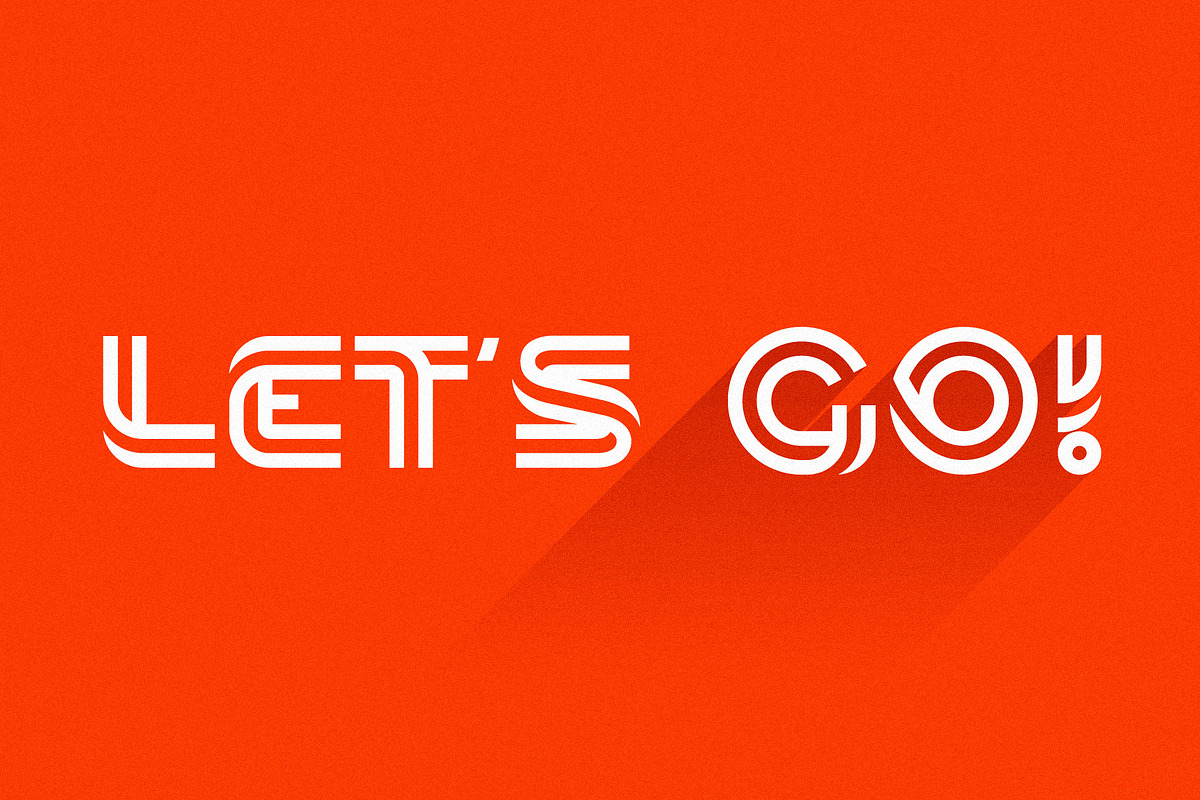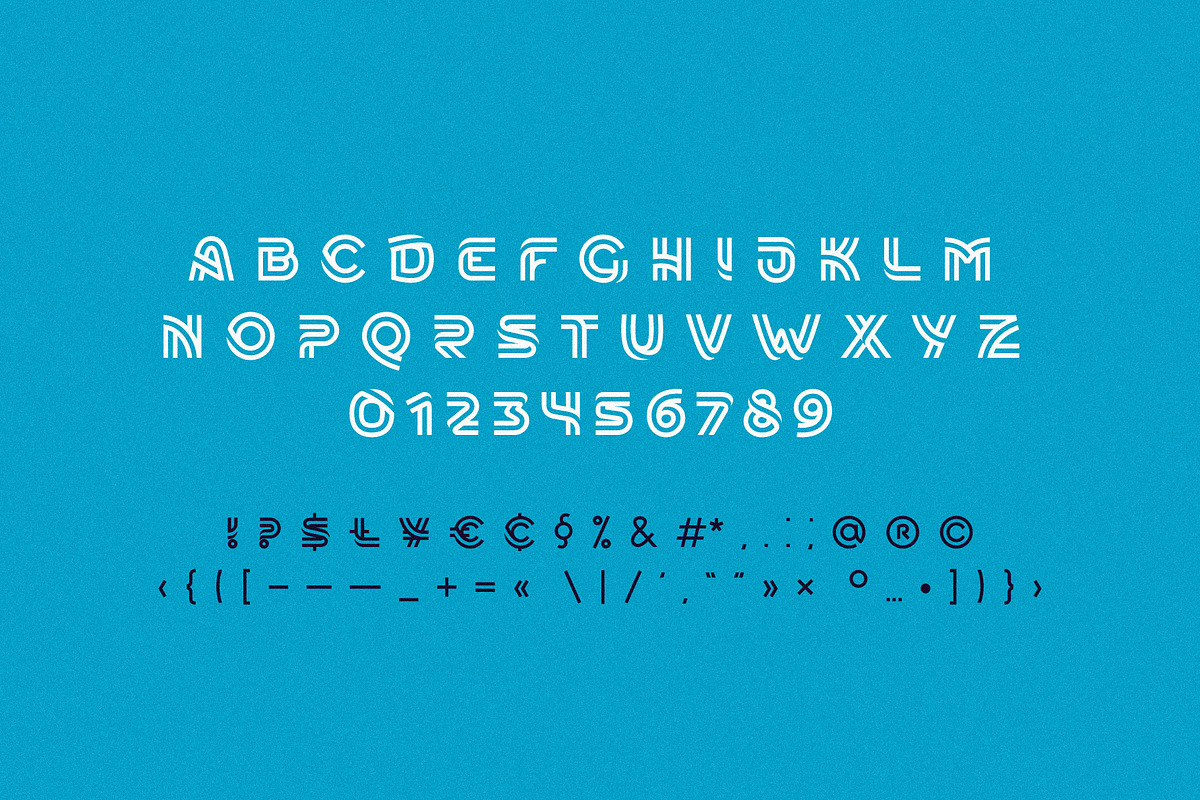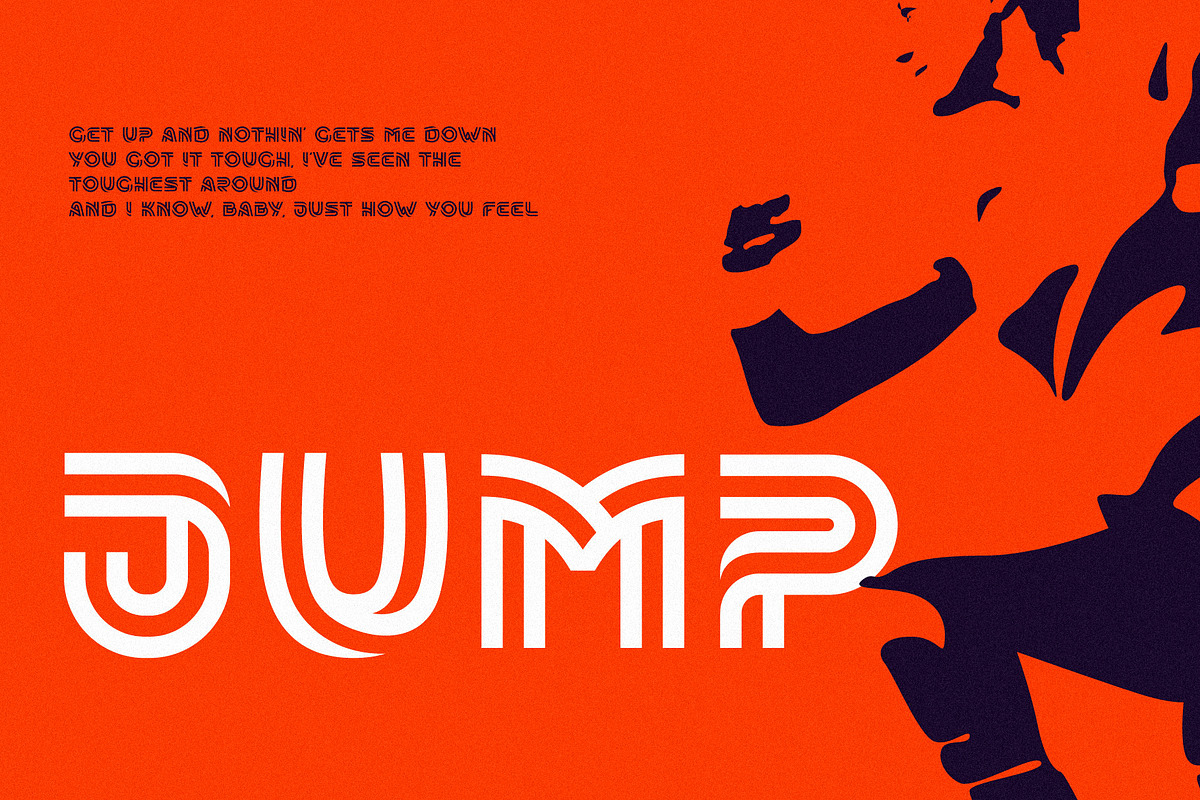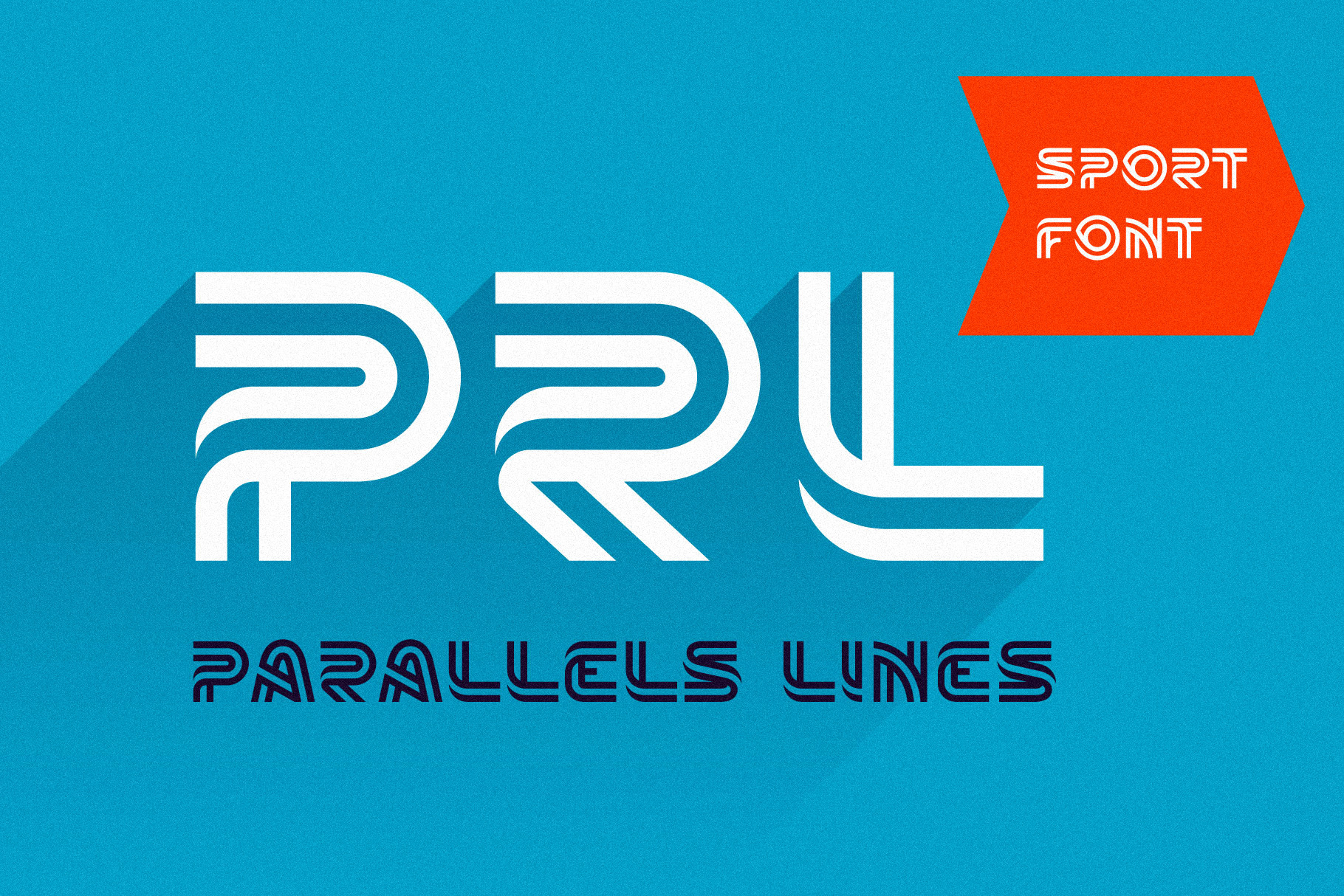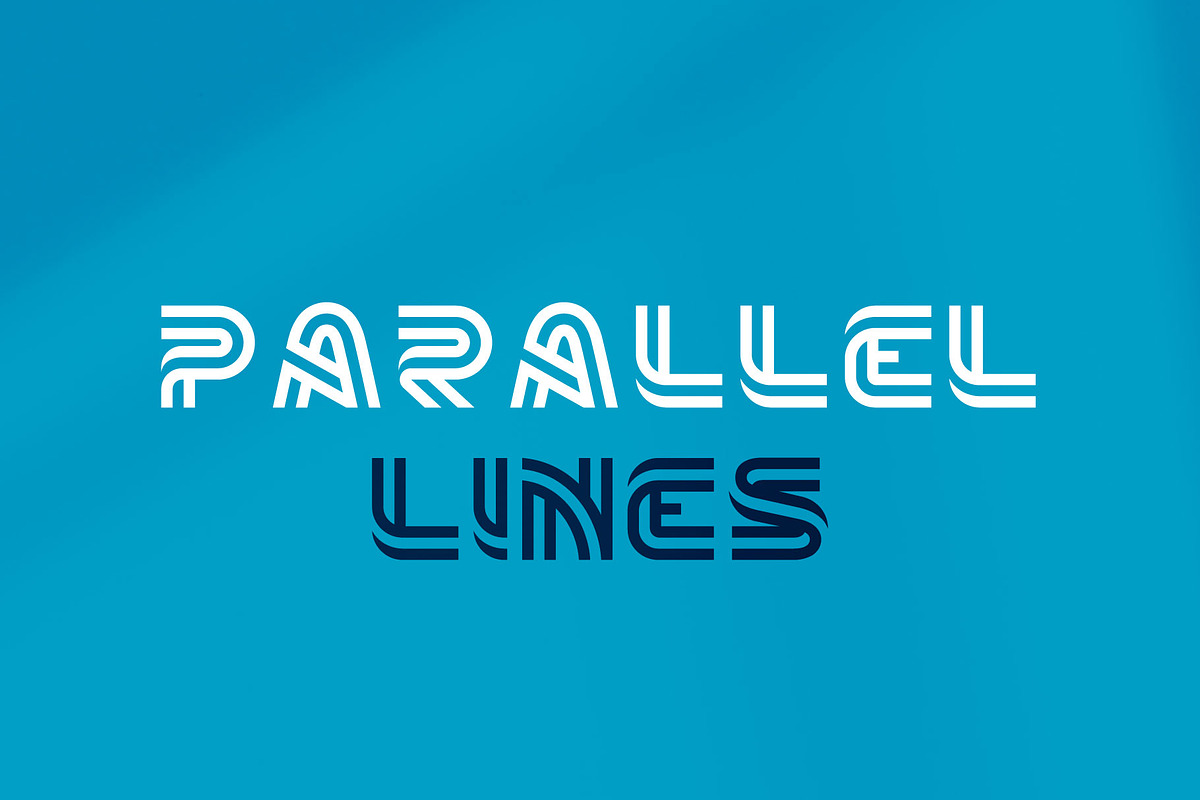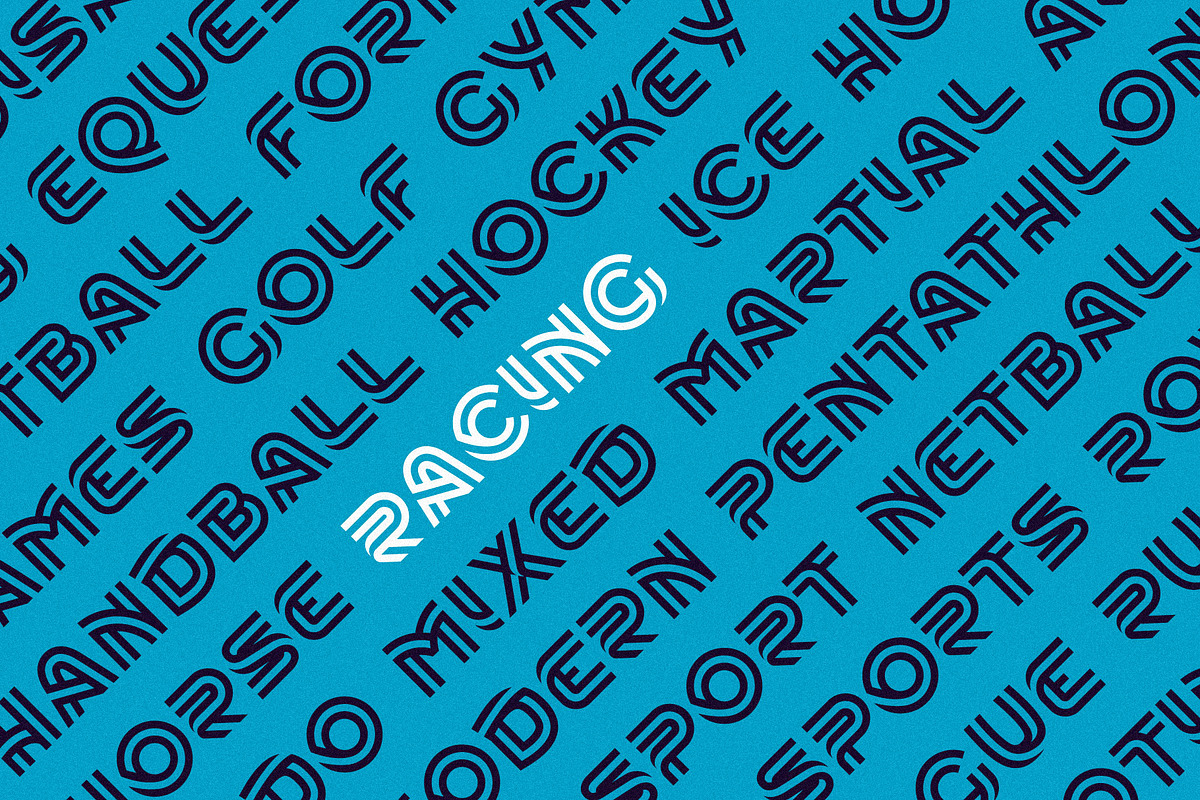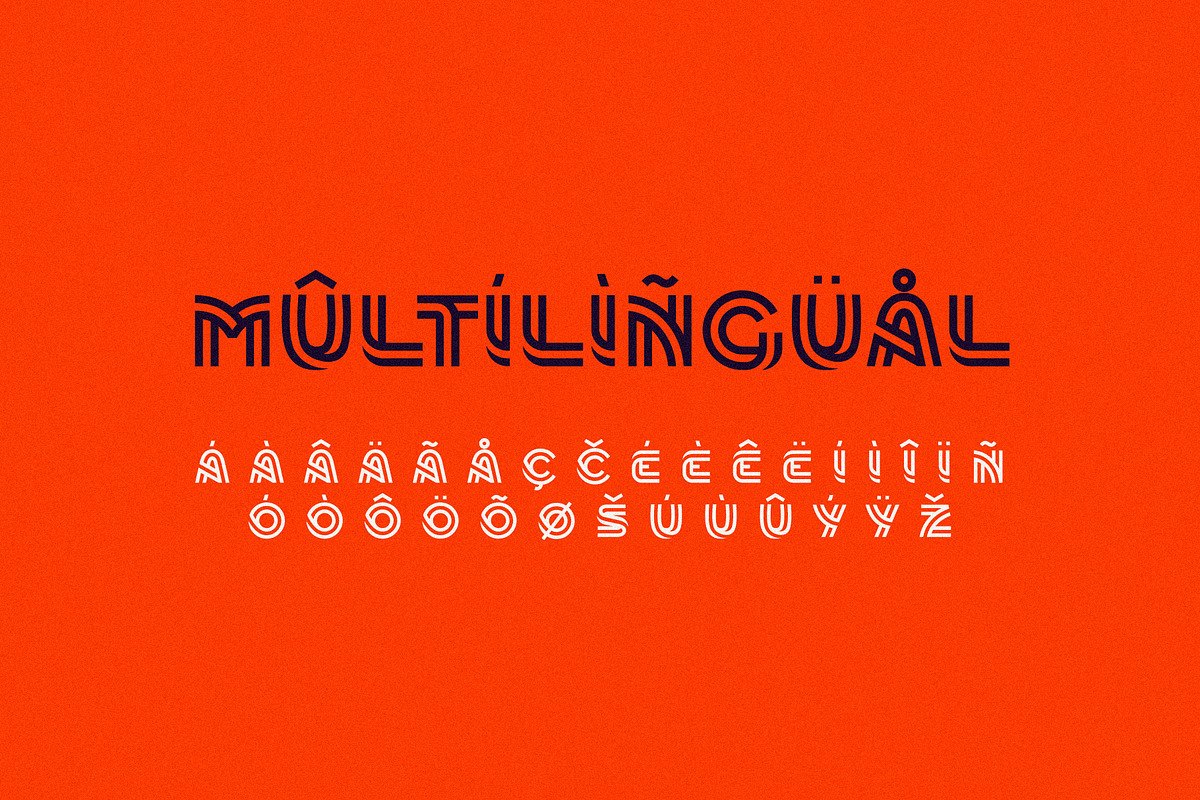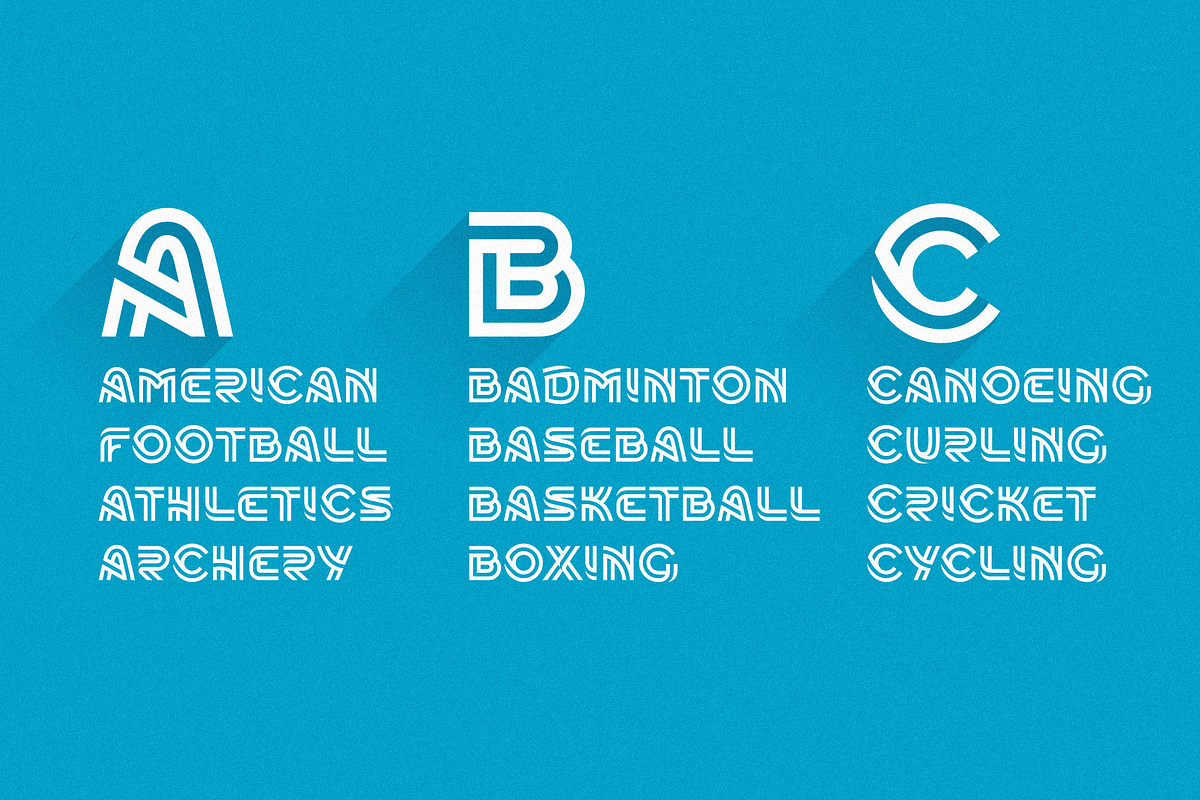
Parallels Lines font
Alphabet letters made of two parallel lines.
Typeface for sport labels, business headlines, finance posters, delivery cards etc.
- Uppercase (lowercase are the same)